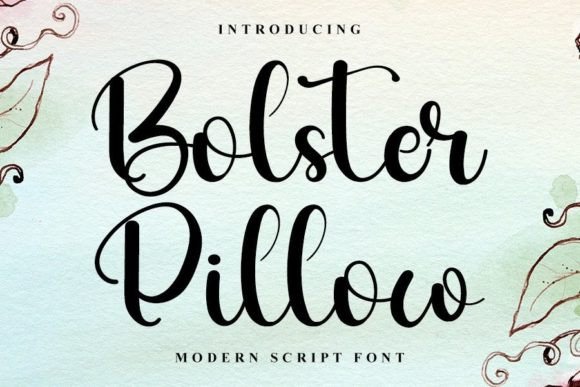
The Bolster Pillow Font: A Timeless Addition to Your Design Arsenal
I’ll never forget the time I was working on a project for a client who wanted a font that was both elegant and playful. I spent hours scouring the internet for the perfect match, but nothing seemed quite right. That was until I stumbled upon the Bolster Pillow font. Its unique blend of sophistication and whimsy instantly won me over, and I’ve been hooked ever since.
So, what makes Bolster Pillow so special? Let’s dive into the details.
- ✨ Elegant and refined, yet approachable and friendly
- 💫 Unique character set with plenty of personality
- 🎨 Perfect for a wide range of design projects, from branding to invitations
While Bolster Pillow is an amazing font, it’s not without its quirks. Here are a few things to keep in mind:
- 🤔 Some users may find the font a tad too ornate for very formal or corporate designs
The Story Behind Bolster Pillow: A Designer Inspiration
According to the font’s creators, Bolster Pillow was inspired by the classic typography of the early 20th century. The goal was to create a font that was both elegant and approachable, with a unique character set that would stand out in any design.
Q: What type of designs is Bolster Pillow best suited for?
A: Bolster Pillow is a versatile font that can be used for a wide range of designs, from branding and logos to invitations and social media graphics.